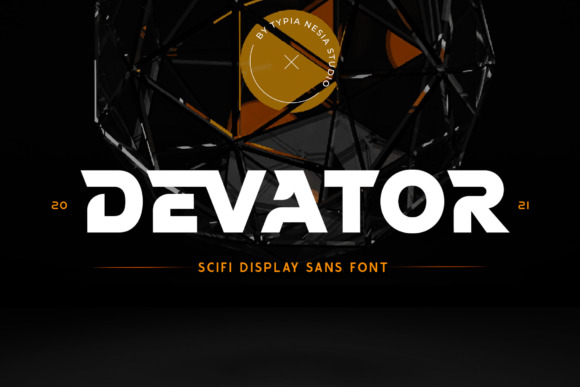
Unleash the power of cinematic storytelling with Devator, the font that ignites imagination and elevates your movie trailers to new heights. This electrifying display font embodies a futuristic aesthetic, capturing the essence of adrenaline-fueled action and otherworldly adventures.
Devator is the ultimate choice for filmmakers and motion graphic artists seeking to create captivating visuals that leave a lasting impact. Its bold and stylish characters exude an urban edge, perfectly complementing projects demanding attention and attitude.
With Devator, you'll have the creative freedom to craft movie trailers that transport audiences to extraordinary realms, immersing them in captivating narratives and heart-pounding moments. Its dynamic design commands attention, ensuring your message cuts through the clutter and resonates with viewers.